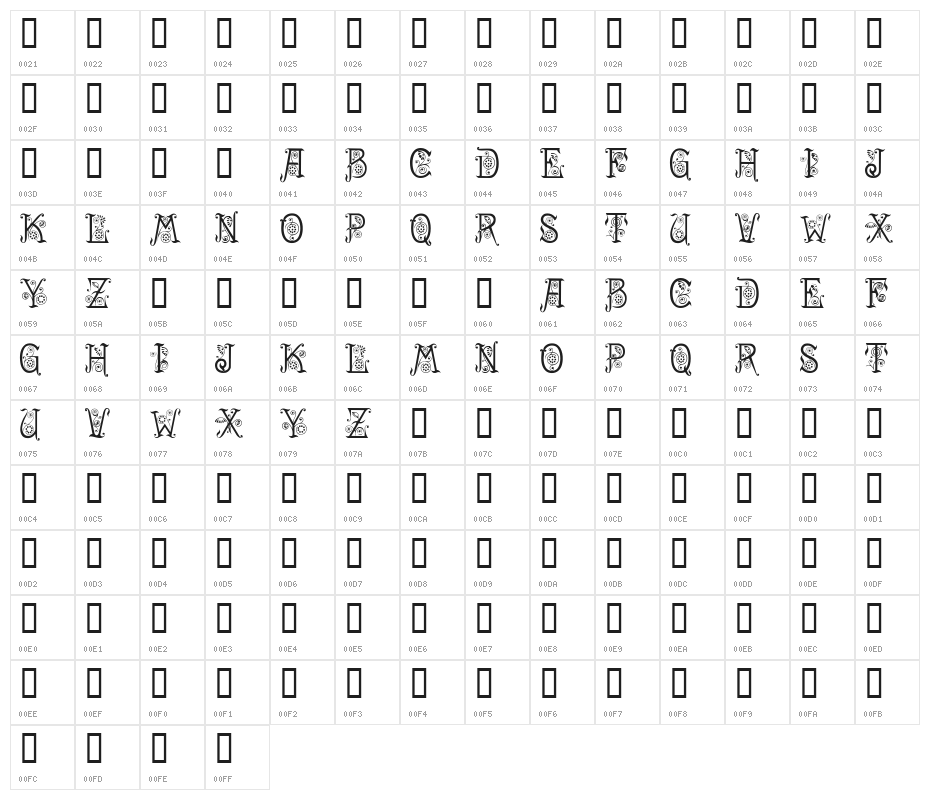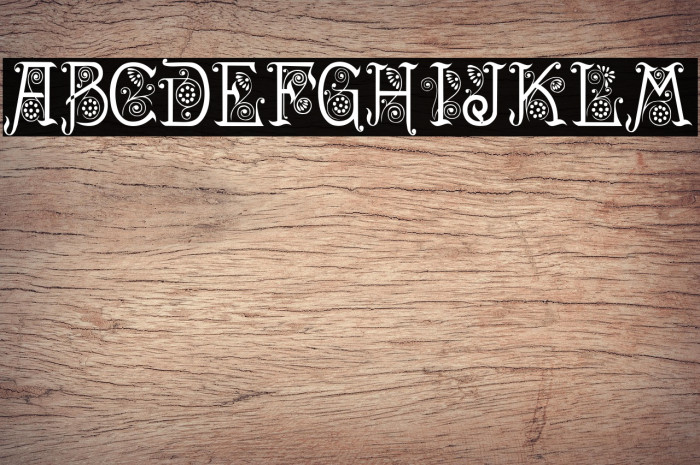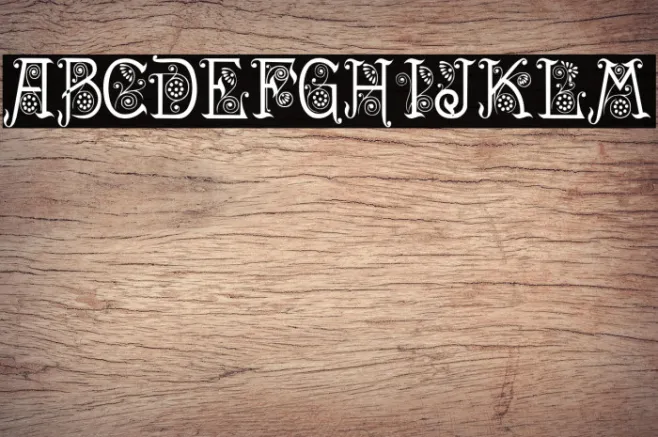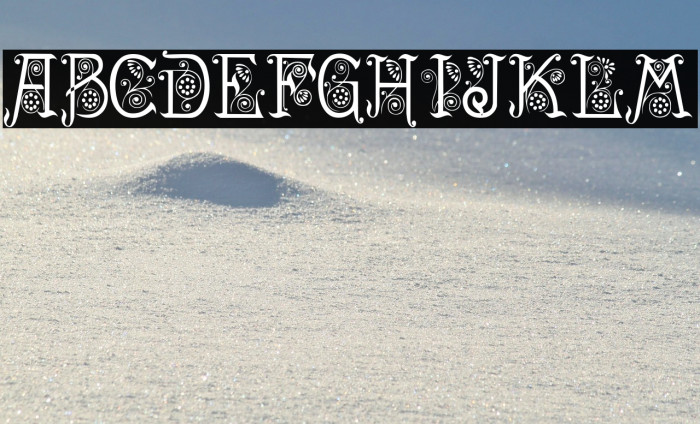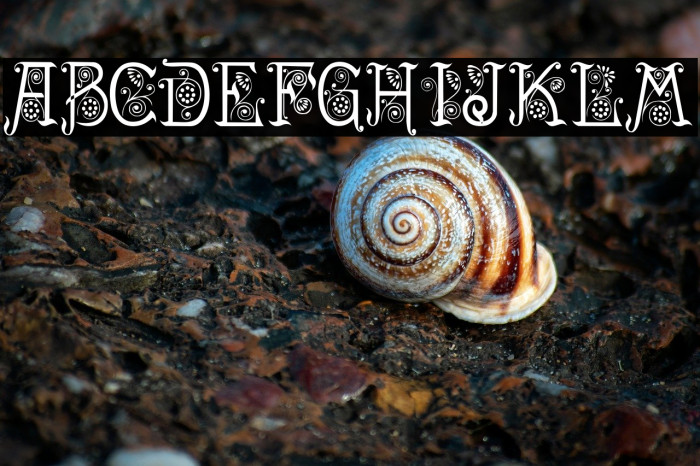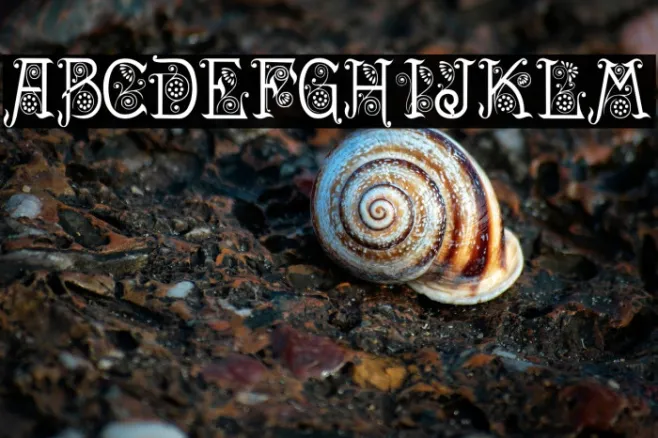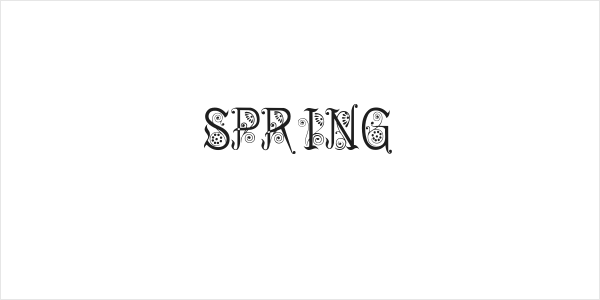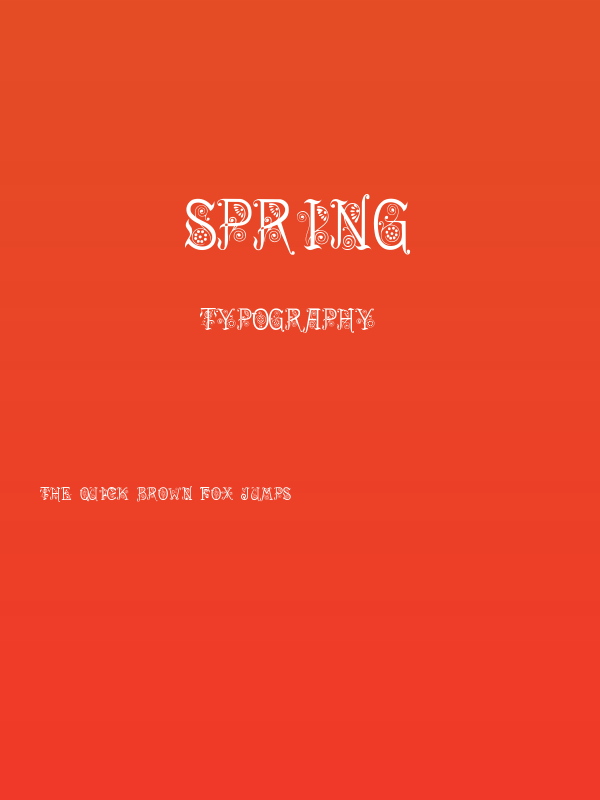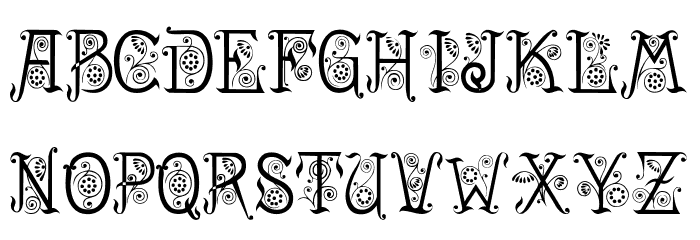
Spring Font
✎ Art Nouveau
Spring Description
This decorative font features intricate floral and spiral embellishments within each character, creating a whimsical and ornate appearance. The uppercase letters are bold and eye-catching, with each character adorned with unique patterns that add a playful yet elegant touch. The design is reminiscent of vintage art nouveau styles, making it ideal for projects that require a touch of sophistication and creativity. The font's elaborate details make it best suited for larger displays where its intricacies can be fully appreciated.
| Proposed Projects | Ideal for wedding invitations, greeting cards, posters, and artistic branding projects. |